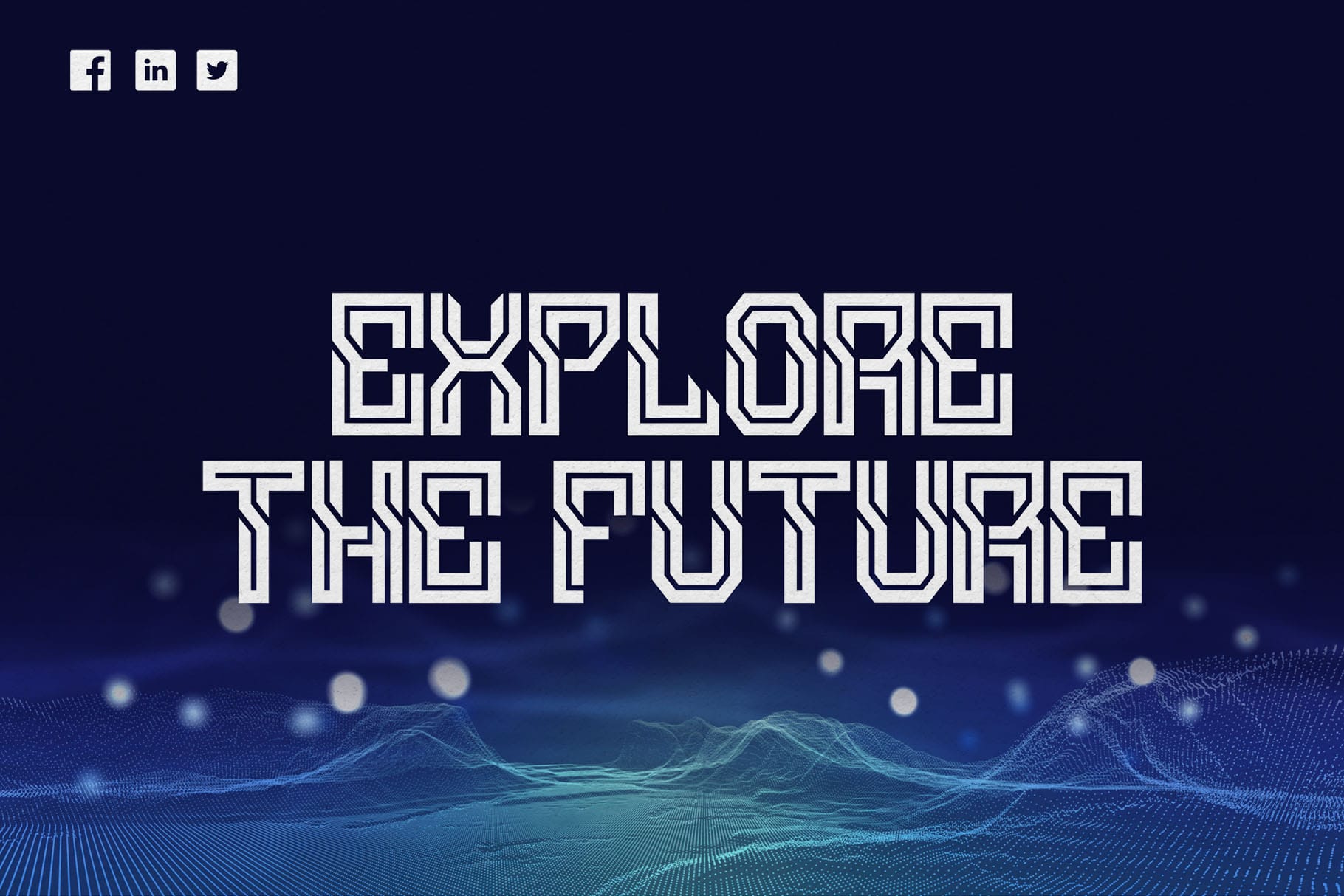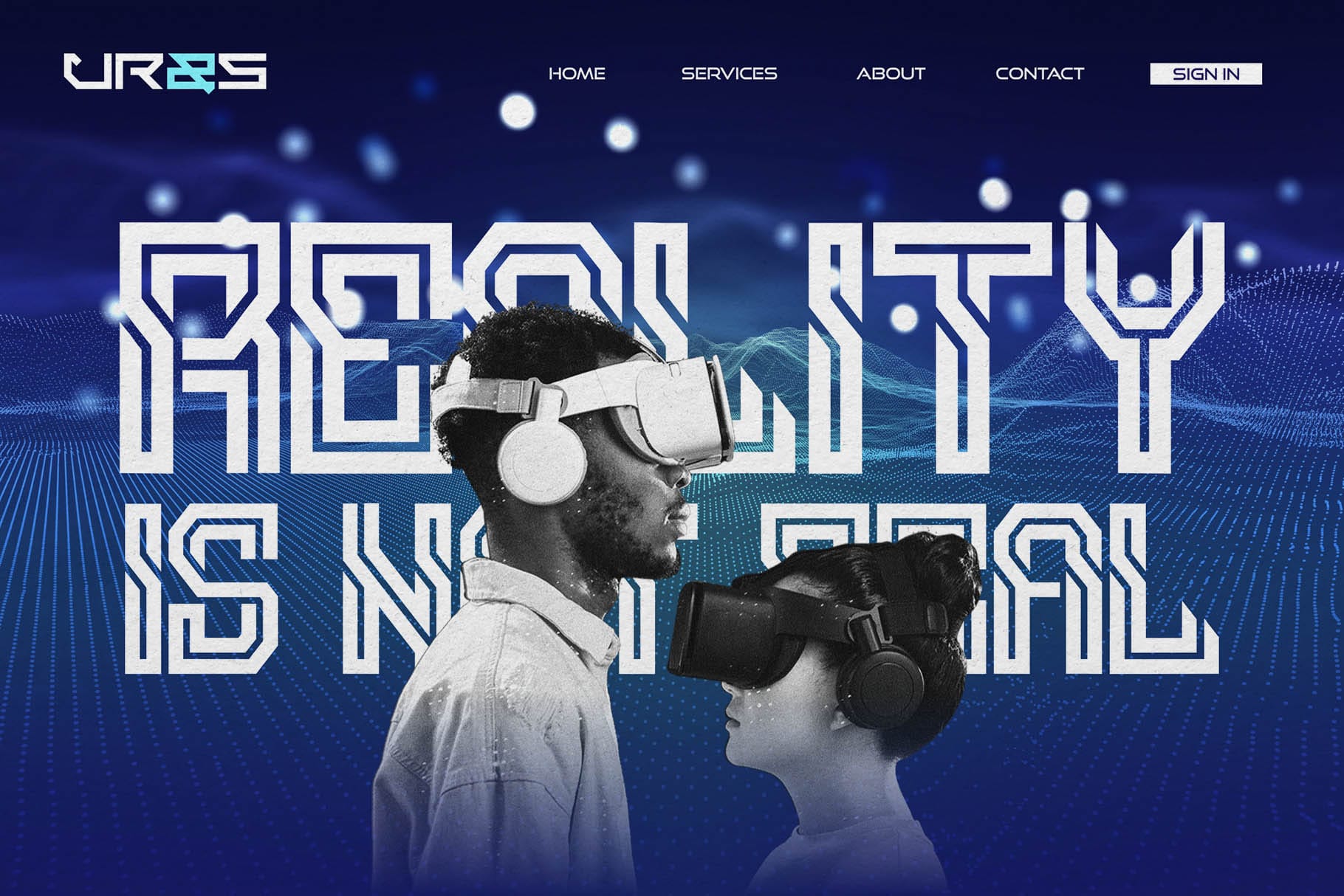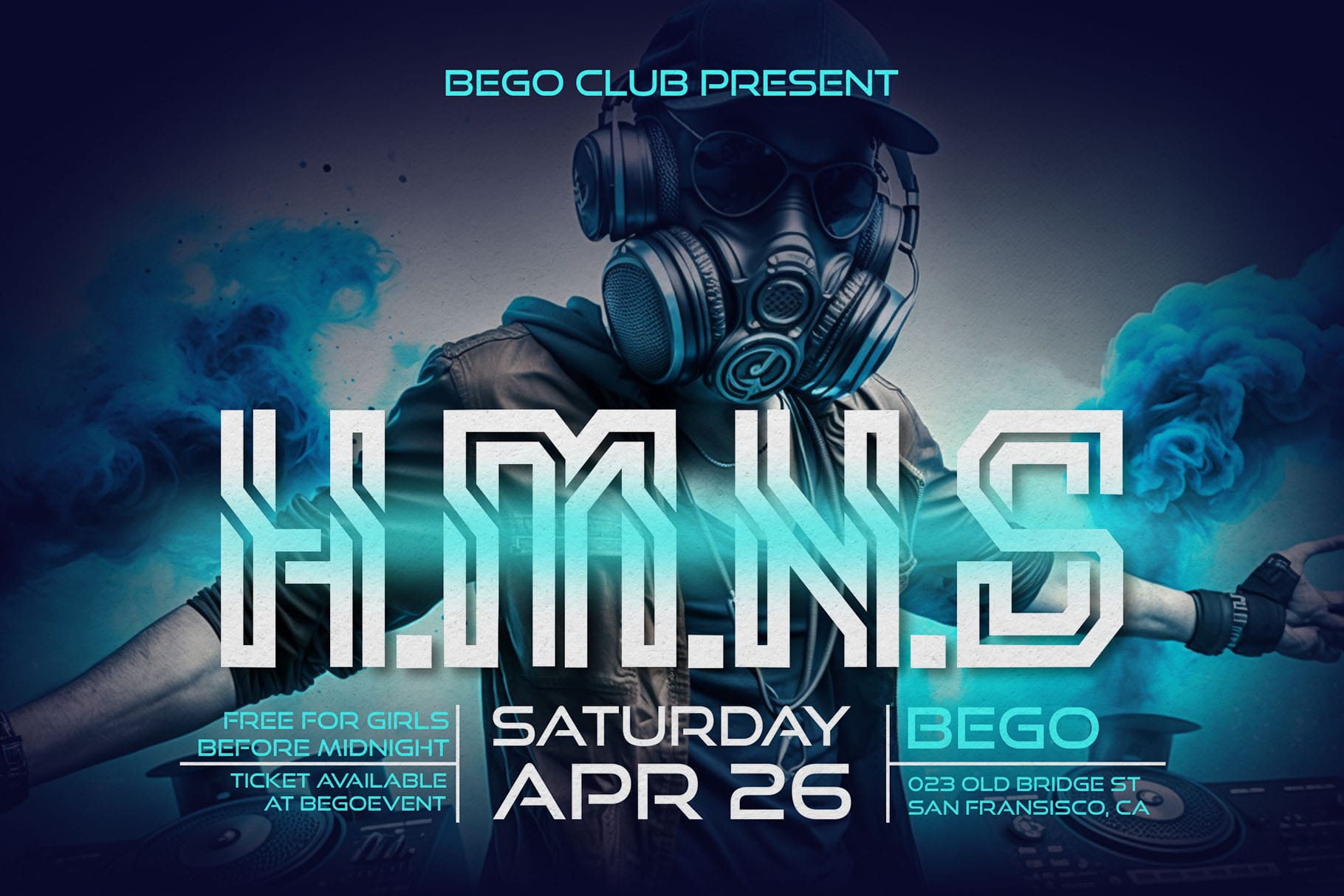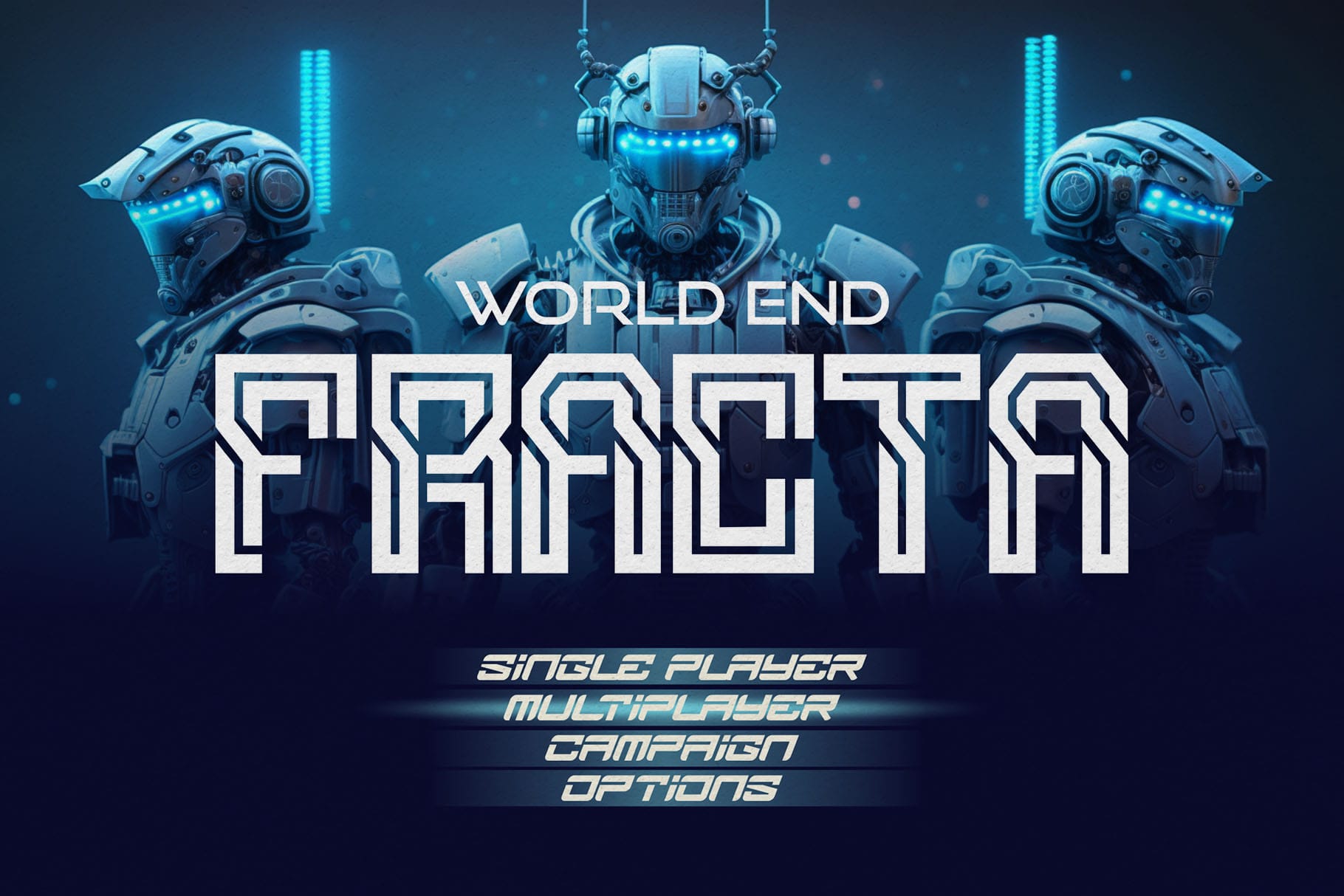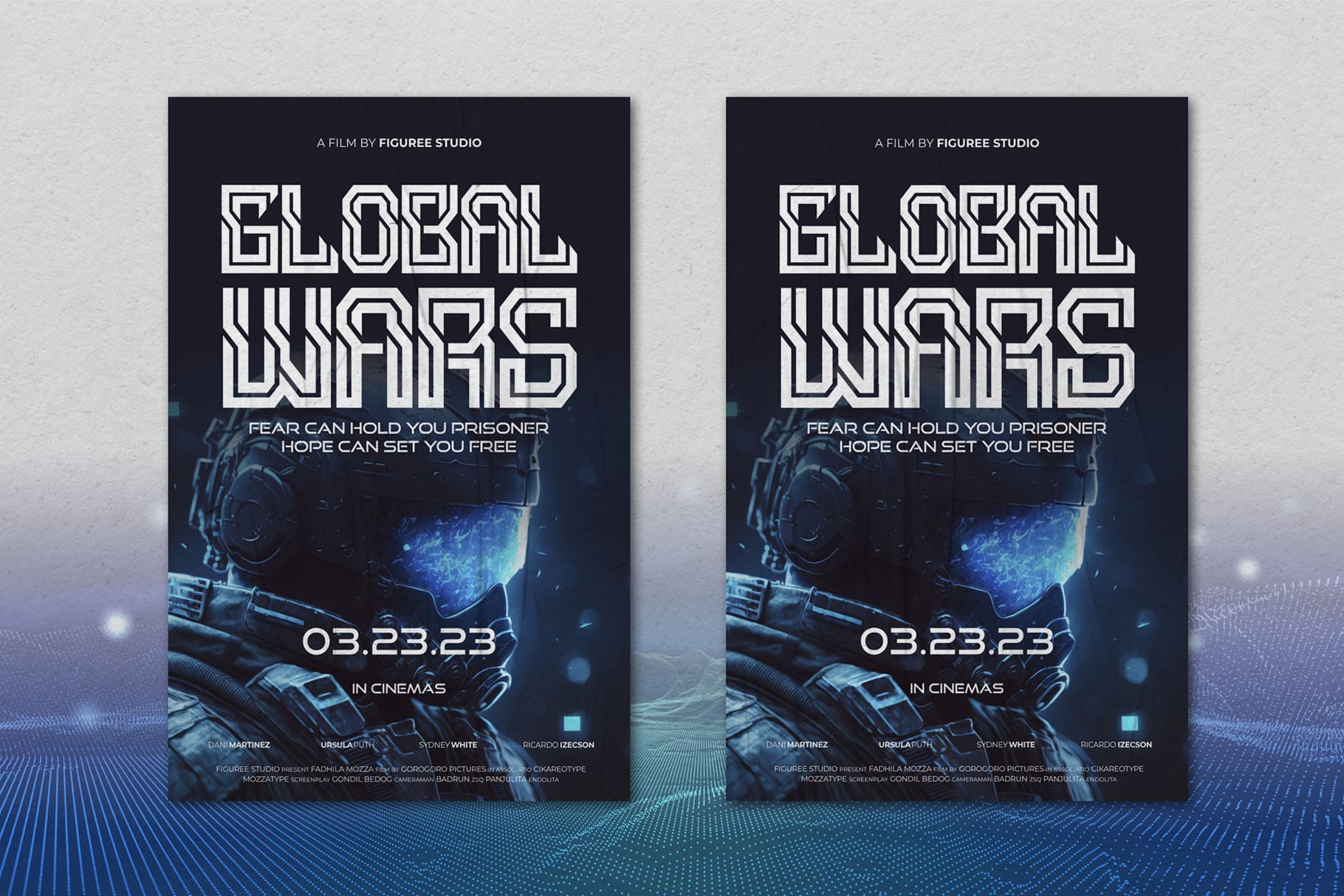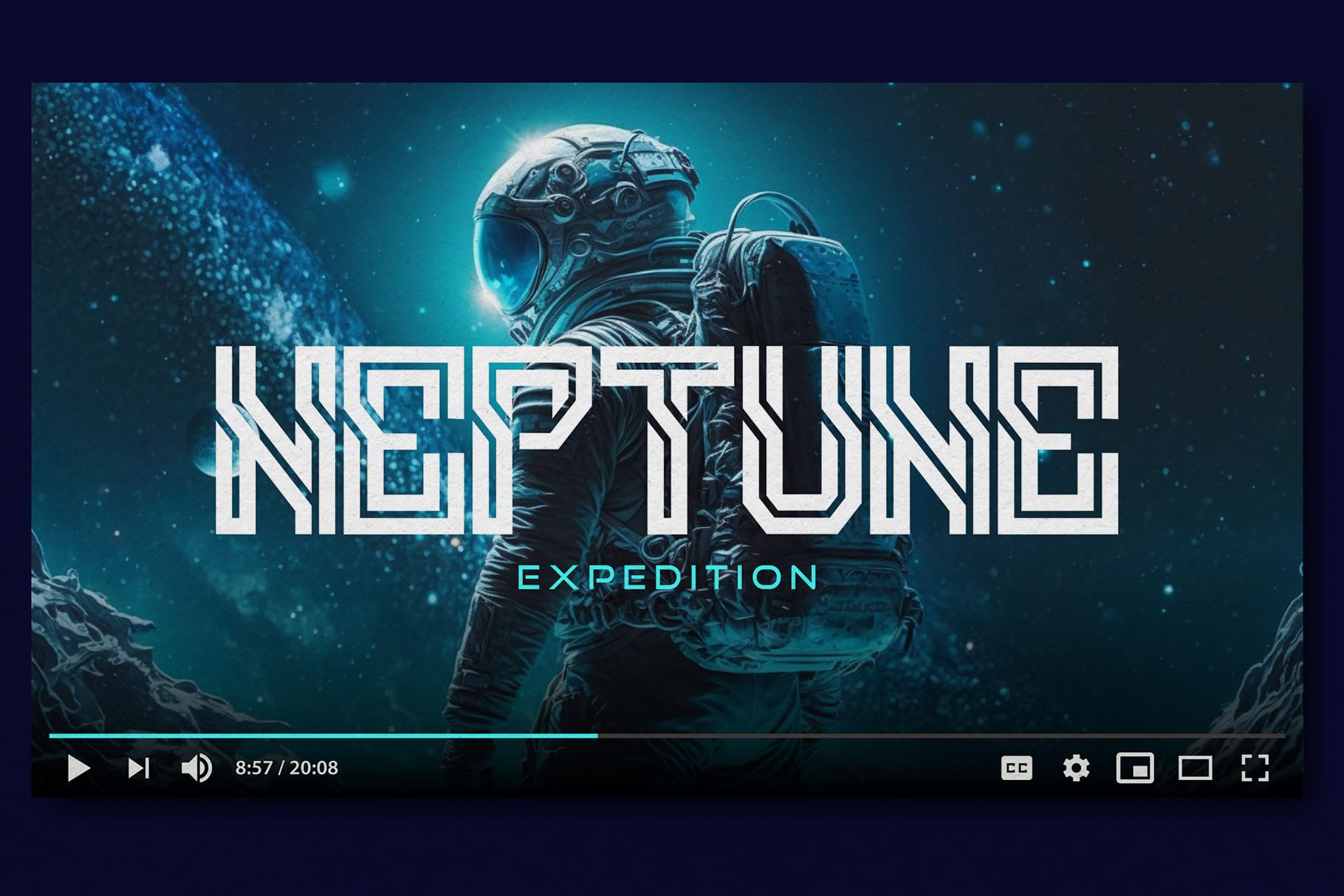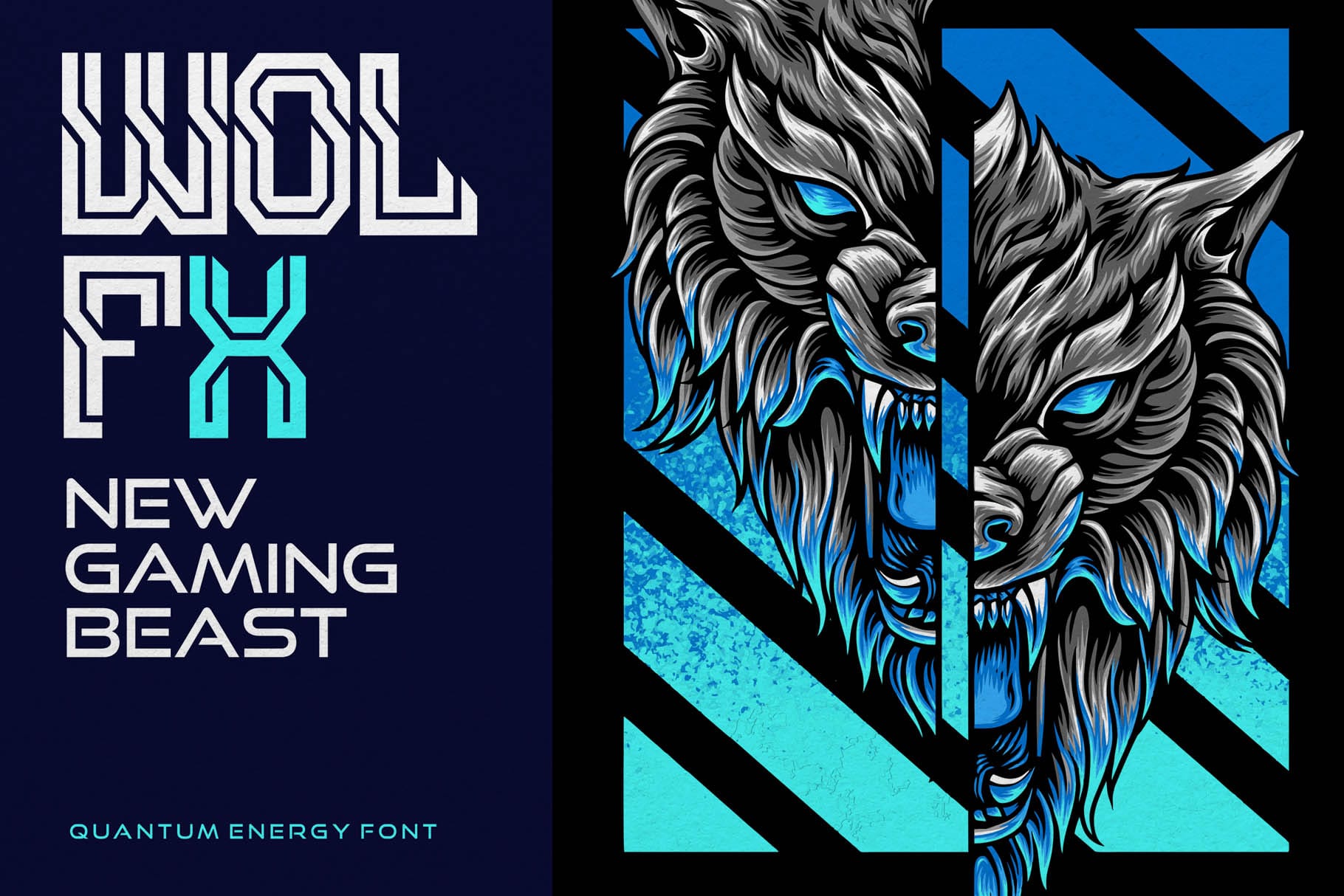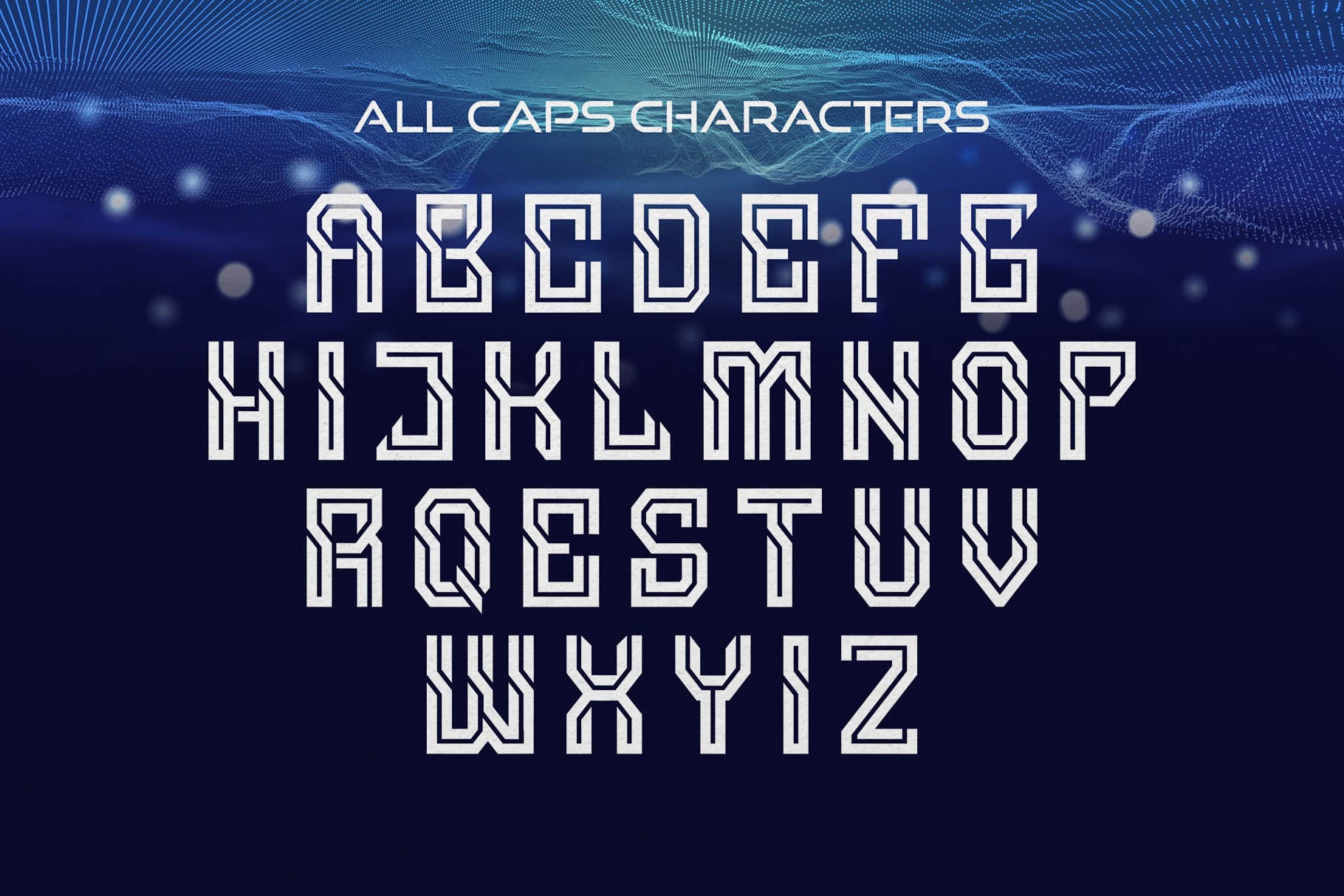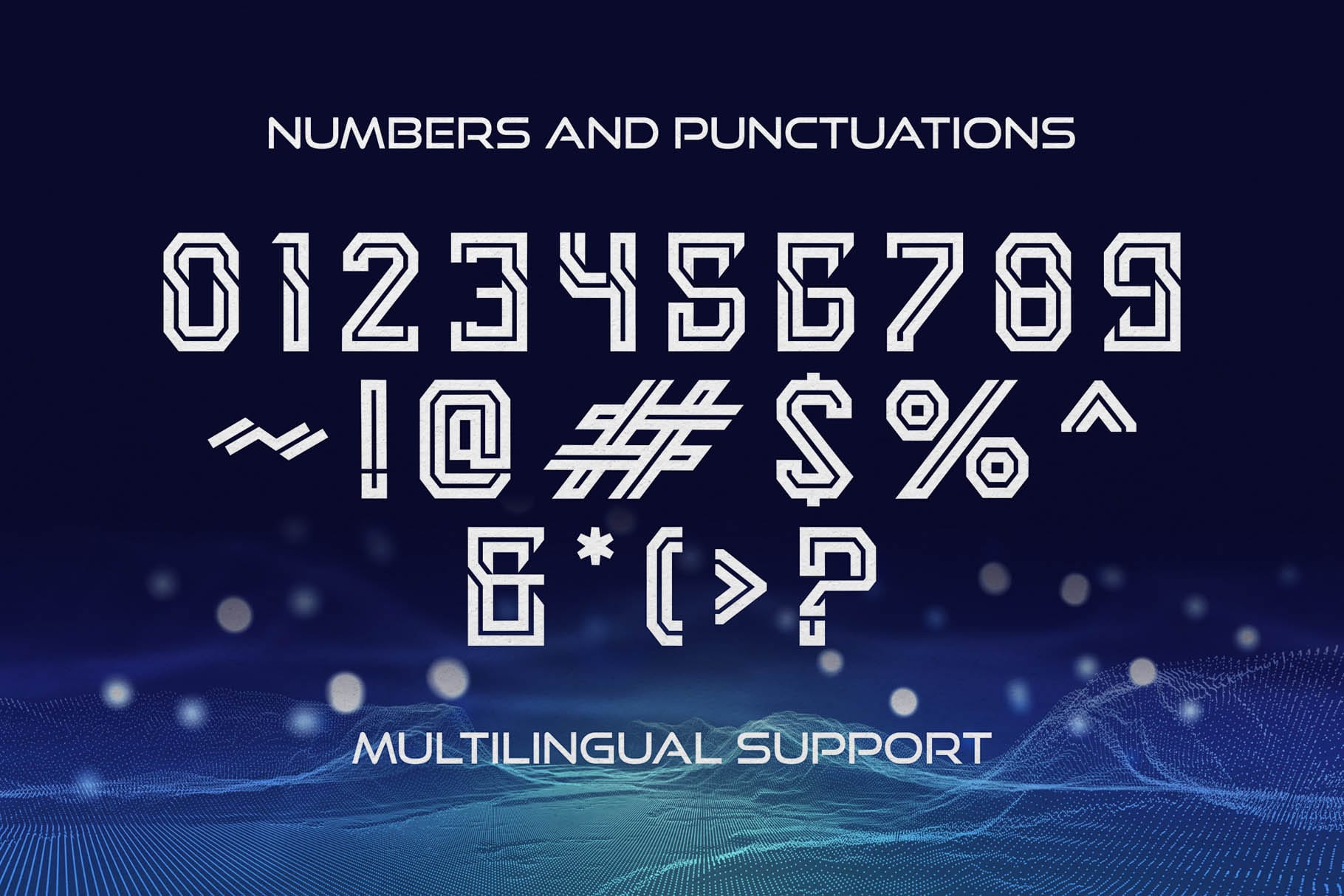
Quantum Energy – Futuristic Display Font for Bold Digital Projects
In modern design, typography is the engine of communication. If you want your brand to look sharp, modern, and unforgettable, you need a futuristic display font that carries strength and innovation. That’s why Quantum Energy – Futuristic Display Font was created. It’s a typeface that blends power and style with geometric precision, making it the perfect choice for logos, posters, advertising, and digital branding.
Quantum Energy stands at the intersection of futuristic aesthetics and practical usability. Whether you are designing for tech startups, esports tournaments, or high-energy campaigns, this futuristic display font delivers both readability and impact.
Futuristic Display Font with Sharp Edges
Quantum Energy is built as a futuristic display font that communicates speed, energy, and innovation. The bold allcaps design, combined with clean numbers and punctuations, makes it extremely versatile. Its sharp edges and angular design evoke futuristic technology, sci-fi movies, and modern gaming culture.
This futuristic display font is ideal for brands that want to look powerful, cutting-edge, and competitive in digital spaces.
Key Features of Quantum Energy – Futuristic Display Font
Professional designers look for fonts that are as practical as they are stylish. Quantum Energy delivers exactly that:
• Allcaps, Numbers, Punctuations: Full character set for maximum usage
• Multilingual Support: Extended Latin coverage for global designs
• Futuristic Display Design: Perfect for digital, tech, and sci-fi branding
• Sharp & Bold: Allcaps forms create instant impact
• Versatile Application: Logos, esports, posters, packaging, websites
Why Designers Love Quantum Energy
Quantum Energy is more than just a futuristic typeface—it’s a tool for bold branding. Here’s why creative professionals keep choosing this futuristic display font:
• Instant Visual Impact: Its allcaps design makes logos and posters unforgettable
• Digital-Ready: Perfect for esports visuals, streaming overlays, and tech branding
• Creative Pairing: Works great with brush or dystopian fonts
• Professional Quality: Carefully kerned, easy to use in any design software
• Future-Proof Design: Relevant across sci-fi, digital, and modern branding trends
Quantum Energy for Logos and Branding
When it comes to logos, the typeface defines your brand voice. Quantum Energy is the futuristic display font built to give logos sharpness and strength. From technology companies to digital creators, this font instantly communicates innovation.
Quantum Energy for Posters and Advertising
Posters are about grabbing attention in seconds. Quantum Energy’s bold geometry and angular energy make it an ideal futuristic display font for large-scale titles, event branding, and futuristic product launches.
Whether used on billboards, digital ads, or esports banners, Quantum Energy ensures your message is loud, sharp, and modern.
Futuristic Display Font in Digital Media
Digital design thrives on fonts that feel modern, unique, and versatile. Quantum Energy excels in this role as a futuristic display font for YouTube thumbnails, Twitch overlays, social media graphics, and digital campaigns.
With multilingual support and extended glyph coverage, it’s ready for global audiences. Designers who work in esports or streaming will especially appreciate its bold clarity on screen.
• Character Set: Allcaps, Numbers, Punctuations
• Category: Futuristic Display Font
• Best Uses: Logos, Posters, Esports, Branding, Digital Campaigns
Font Pairing Suggestions
Unlock the full potential of Quantum Energy with perfect font pairings:
This combination ensures every project using Quantum Energy feels dynamic and visually unique.
Try Quantum Energy Yourself
Want to see how Quantum Energy looks in action? Try here and test your own words in this futuristic display font before downloading.
Why Quantum Energy is the Futuristic Display Font You Need
Typography defines modern brands. Quantum Energy makes sure your visuals stand out with futuristic clarity and impact. Designers love it because it merges sharp sci-fi energy with professional readability. From esports teams to bold ad campaigns, Quantum Energy empowers your creative vision.
Quantum Energy – Futuristic Display Font is the ultimate choice for designers who want a bold, innovative, and modern typeface. With allcaps, numbers, punctuations, multilingual support, and multiple file formats included, it’s a future-proof tool for logos, posters, esports, and beyond.